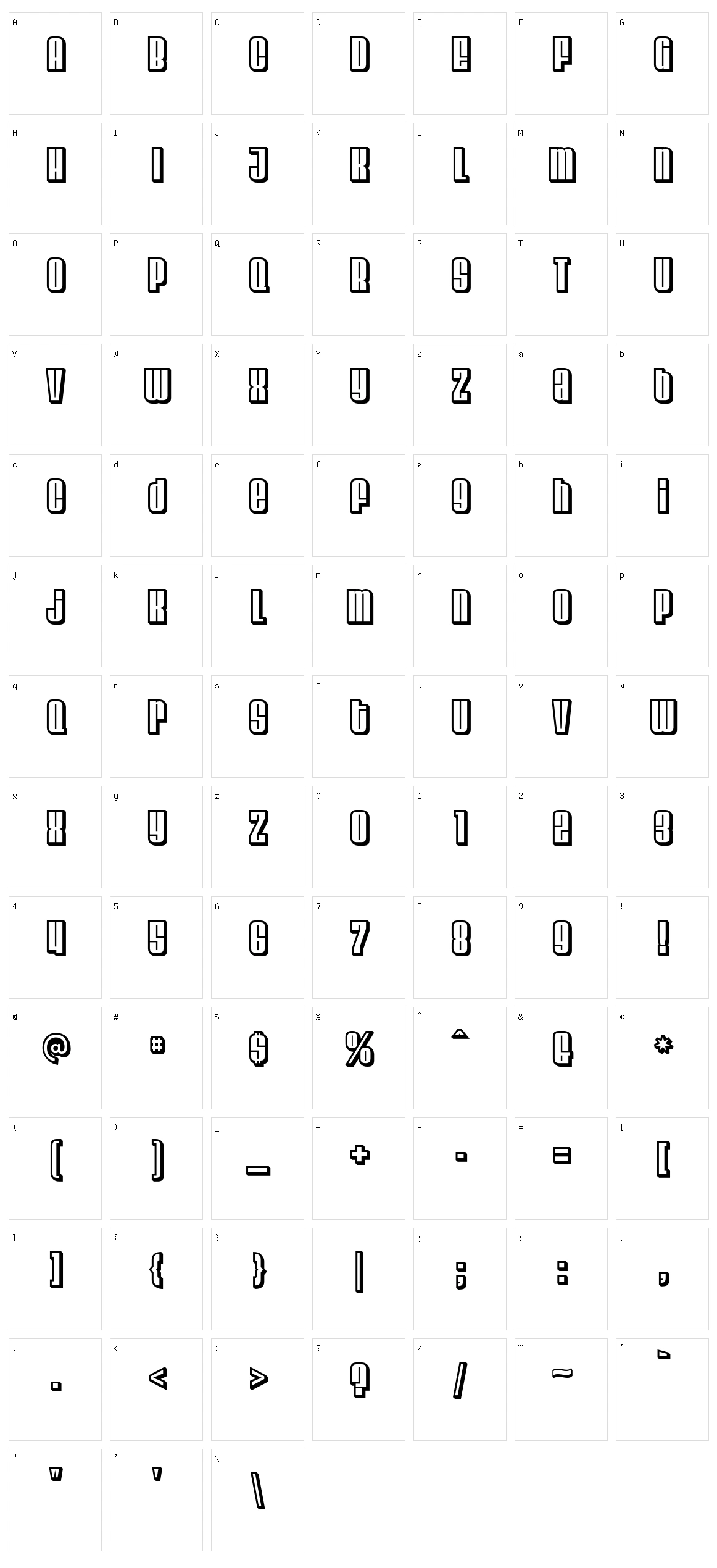
The free font Velvenda is carefully designed by Typodermic Fonts, showcasing a thoughtful balance of creativity and usability and falls under the Groovy font style. When you download the ZIP file, it contains only 39.13 KB of font files, making it lightweight and quick to download. Please review the license details below to understand permitted usage and distribution rights. If license information is not available, we recommend using this font for personal projects only or contacting the author directly for commercial usage permissions.